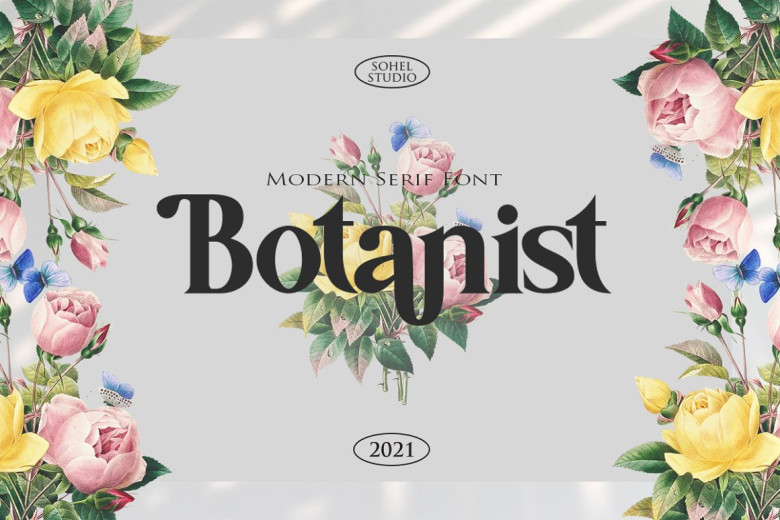
Botanist Font
Botanist Serif is an elegant uppercase, lowercase typeface designed to appear stunning in both small and large settings. Botanist’s clean lines and luxurious curves add an additional touch of class, creating a memorable display for logos or headings with this typeface.
Botanist Serif Font